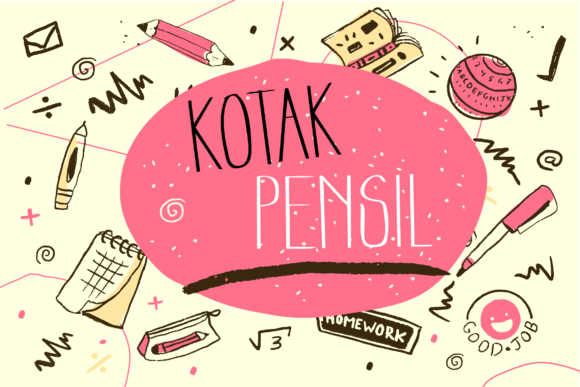
Welcome to the realm of creativity, where imagination meets expression in the exquisite form of Kotak Pensil Font, a captivating script font born from the playful strokes of a child's hand. Each letter dances and flows with an innocent charm, reminiscent of childhood dreams and aspirations.
Unleash your inner artist and let Kotak Pensil Font transform your creative endeavors into masterpieces. Whether you're crafting invitations for a special occasion, designing enchanting posters, or simply adding a touch of whimsy to your social media posts, this font will effortlessly elevate your designs. Its unique character will make your words come alive, drawing the eyes of your audience and leaving them captivated.
Kotak Pensil Font is not just a font; it's an invitation to embark on a creative journey, where every stroke tells a story. Its versatility knows no bounds, making it the perfect choice for a wide range of projects. From eye-catching logos and business cards to heartwarming greeting cards and memorable wedding invitations, Kotak Pensil Font will add a touch of magic to every creation.
Visualize your designs adorned with Kotak Pensil Font, where every letter exudes playfulness and invites the imagination to soar. Let your words dance across the page, carrying messages of love, joy, and inspiration. Engage your audience with the charm of handwritten notes or captivate them with the allure of unique branding, all made possible with the artistry of Kotak Pensil.
Dare to be different and embrace the boundless creativity that awaits you with Kotak Pensil Font. Its enchanting style will transform your projects into works of art, leaving a lasting impression on all who encounter your designs.